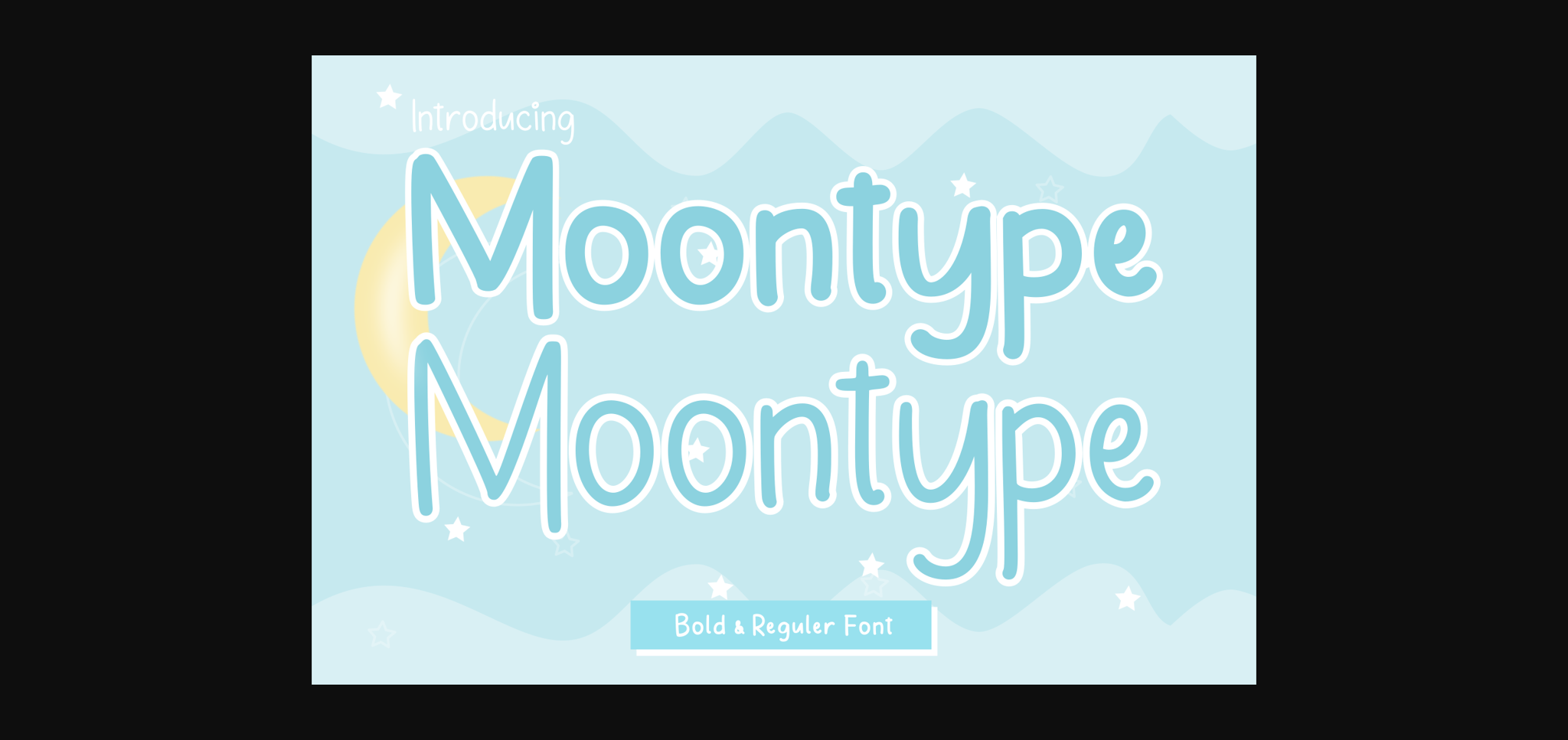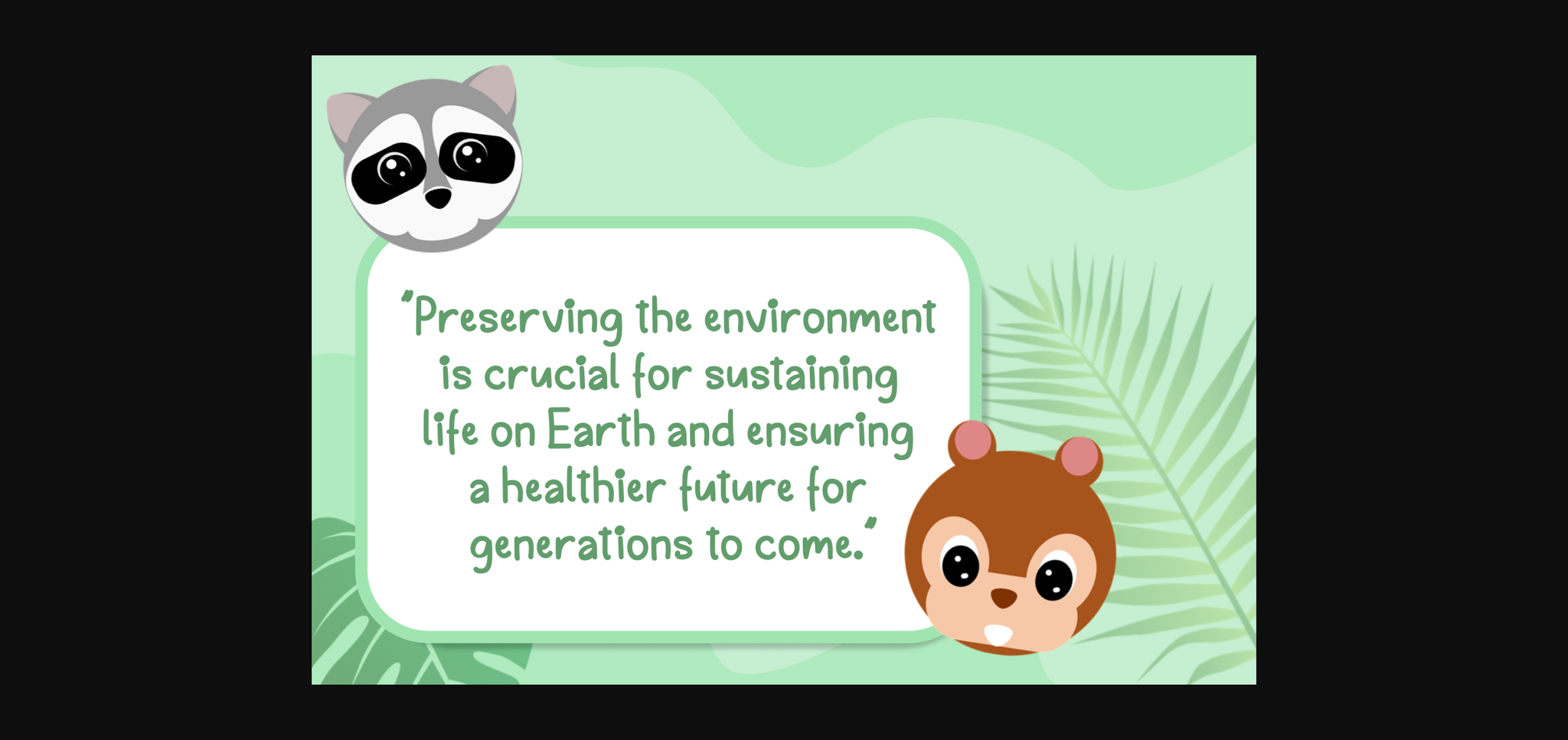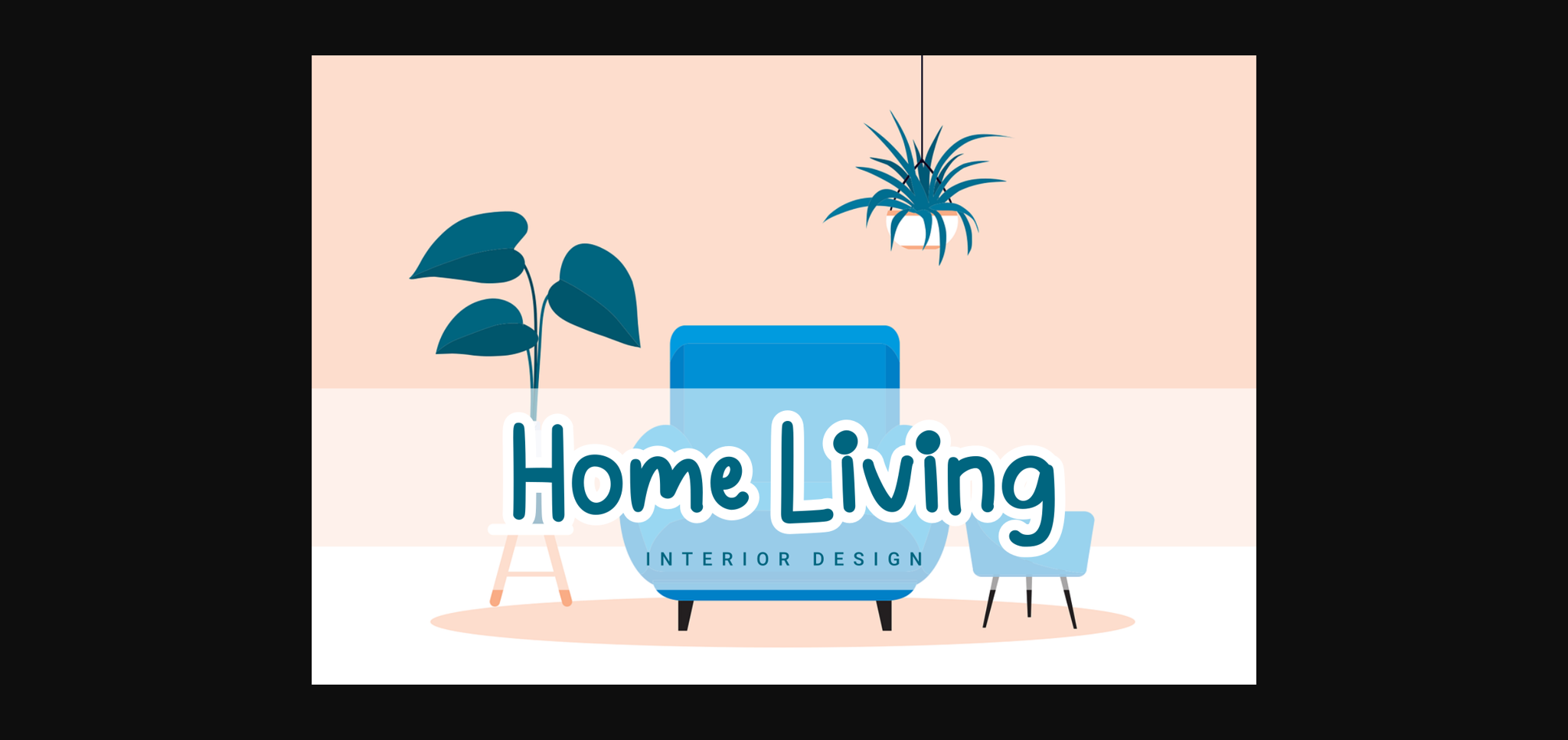
About Moontype Font
Introducing “Moontype” – a sleek sans-serif font with a touch of handwritten simplicity. Its minimalist design makes it perfect for various projects, from branding to web design. With balanced proportions and versatility, Moontype adds style to any design effortlessly.